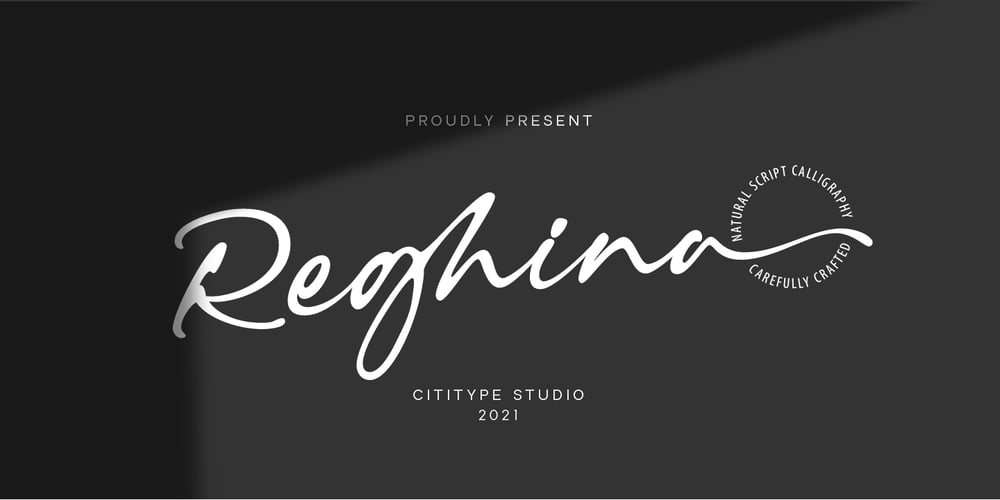
Reghina Font Family was designed by Muhammad Ridha Agusni, Siti Saribanon Nurjannah and published by Cititype. Reghina contains 1 styles and family package options. Let the ink flows and create your elegant design with Reghina font.This font is PUA encoded. PUA stands for “Private Use Areas”. When a font is PUA encoded it means that you can access all special characters such as Alternates, Swash, stylistic and ligaturePlaying with alternate glyphs is the same thing by playing combinations according to your taste. Coupled with ligatures to reinforce the natural feel, lowercase swashes at the beginning and ending make your design framed in a flexible flowThis font is great for digital signatures, photographic text, website banners and brand logos.Unique and flowing naturally makes this font worth having